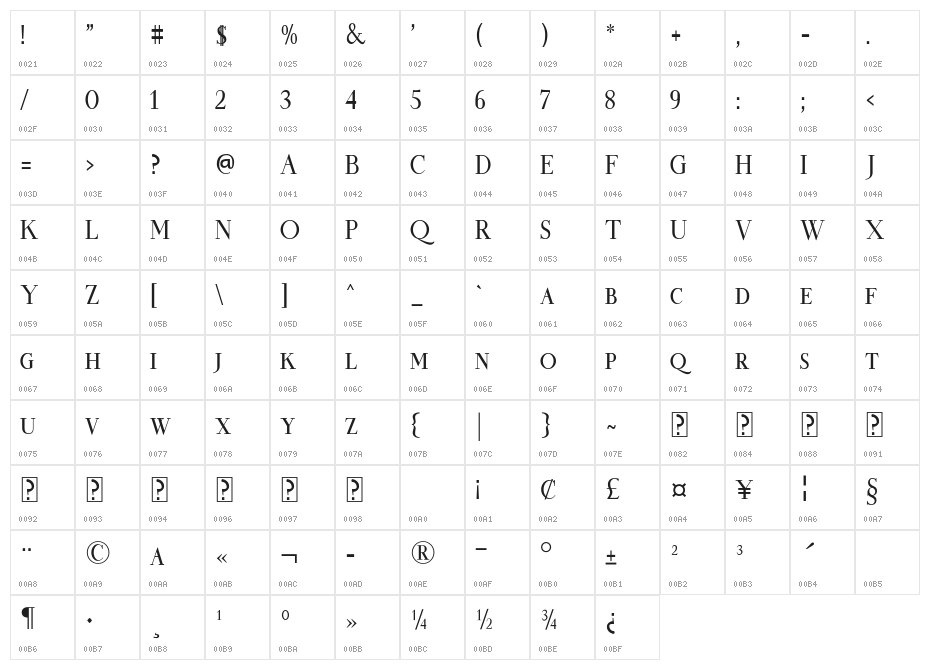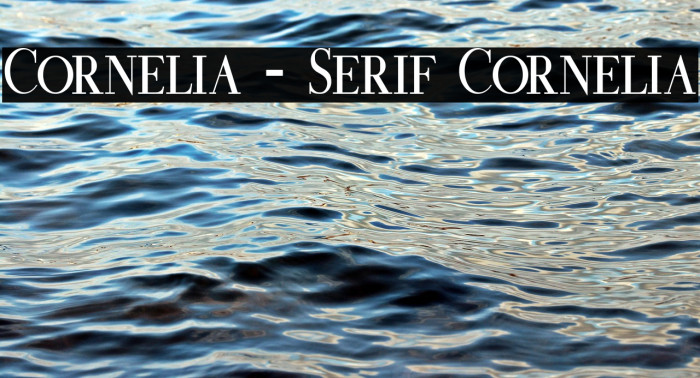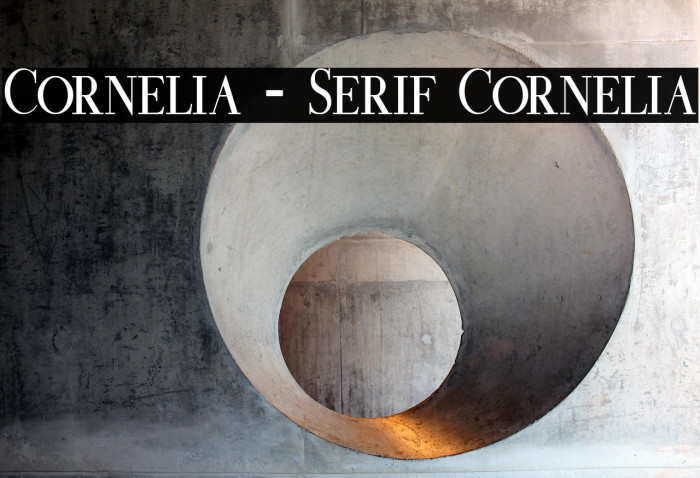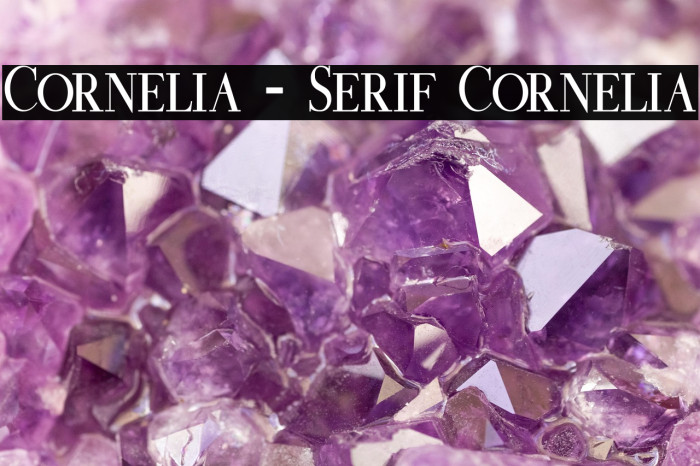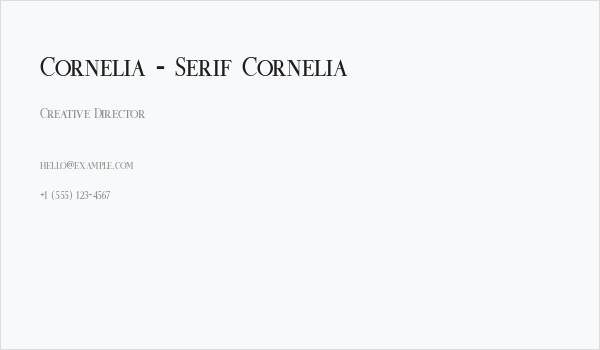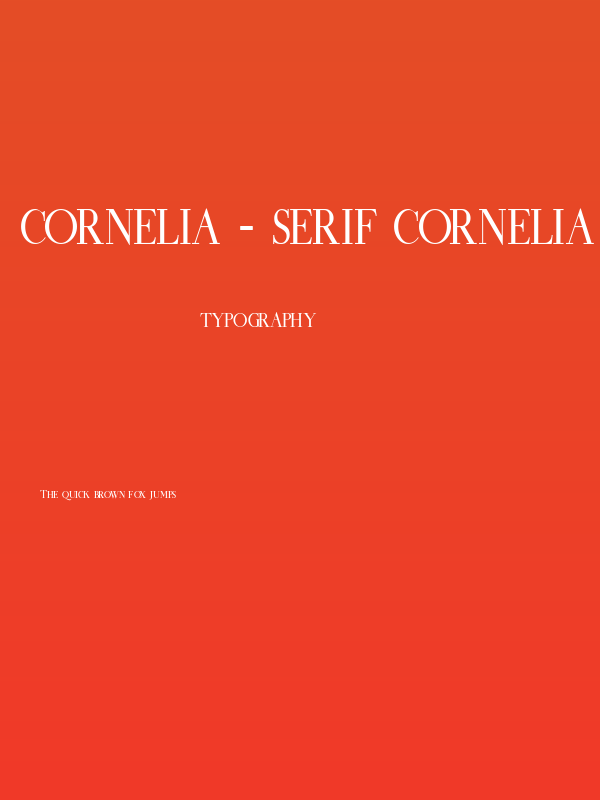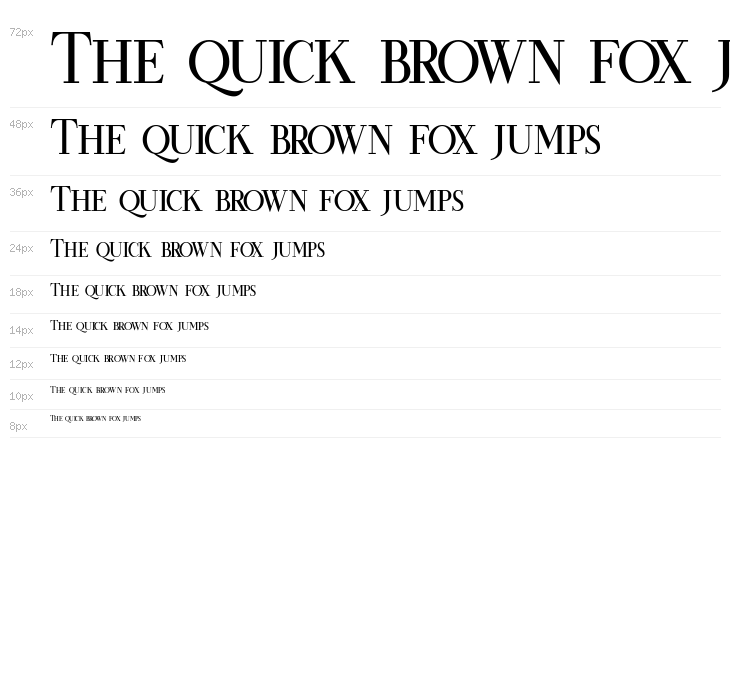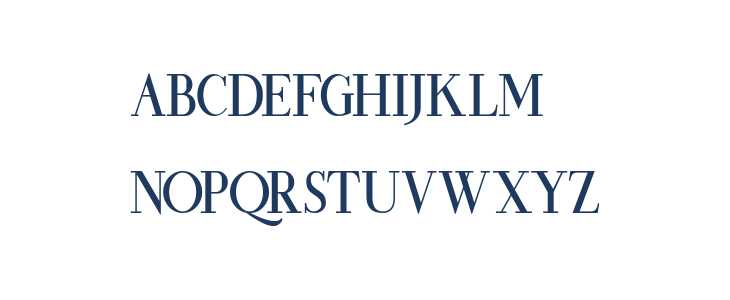
Cornelia - Serif Cornelia Font
Cornelia - Serif Cornelia Description
This font exudes a classic elegance with its refined serif design, characterized by sharp, clean lines and a sophisticated presence. The uppercase letters are tall and stately, with a slight curvature that adds a touch of grace. The lowercase letters maintain a consistent style, offering a harmonious blend with the uppercase. Numbers are well-proportioned, ensuring readability and balance. Special characters are thoughtfully designed, maintaining the overall aesthetic of the font. The contrast in stroke thickness is moderate, providing a clear distinction between the main strokes and the serifs, enhancing legibility while retaining a stylish appearance.
| Proposed Projects | Ideal for editorial design, book covers, formal invitations, and branding projects that require a touch of sophistication. |